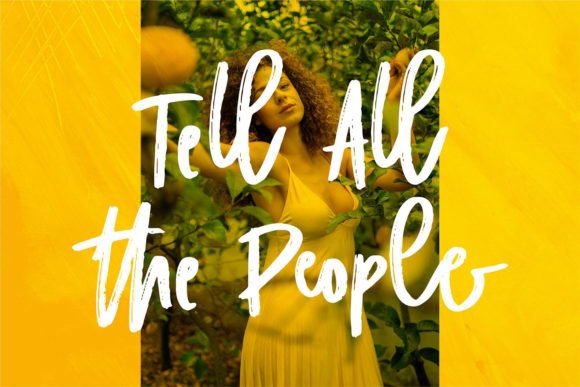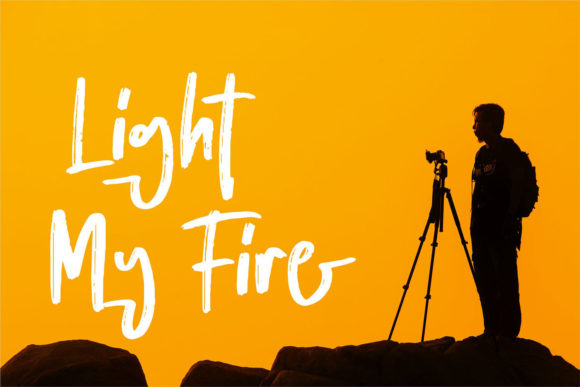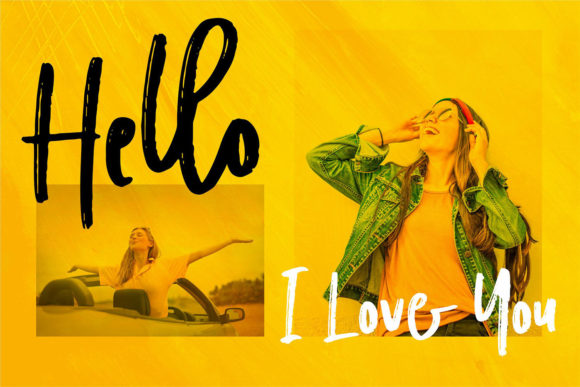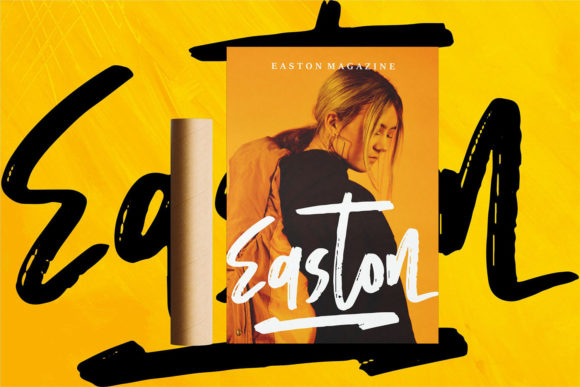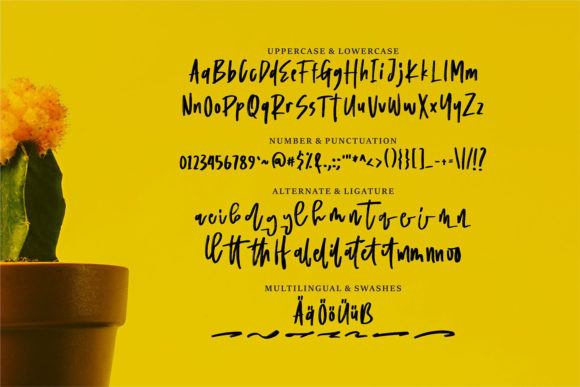
Introducing Galiley Font: The Modern, Handwritten Script Font You Need
Are you tired of using the same old fonts in your designs? Look no further than Galiley Font, a modern, asymmetrical, and relaxed paint brushed script font that’s sure to add a personal and realistic feel to your creations. With its authentic handwritten look and feel, Galiley Font is the perfect choice for designers and crafters who want to add a touch of elegance and sophistication to their work.
The Features of Galiley Font
Galiley Font is a versatile and stylish font that’s perfect for a wide range of design projects. Here are just a few of its key features:
- Modern and asymmetrical design: Galiley Font has a unique, modern design that’s both asymmetrical and relaxed. This gives it a fresh and contemporary feel that’s perfect for designers who want to create something new and exciting.
- Authentic handwritten look and feel: Unlike other script fonts, Galiley Font has an authentic handwritten look and feel that’s sure to add a personal touch to your designs. Whether you’re creating a logo, a poster, or a social media graphic, Galiley Font is the perfect choice.
- Versatile style: Galiley Font is incredibly versatile, making it perfect for a wide range of design projects. From elegant wedding invitations to fun and playful party decorations, Galiley Font can be used to create spectacular designs that are sure to impress.
Why Designers and Crafters Love Galiley Font
So why do designers and crafters love Galiley Font? Here are just a few reasons:
- Easy to read: Despite its handwritten look and feel, Galiley Font is incredibly easy to read. This makes it perfect for designs that require a lot of text, such as posters, flyers, and brochures.
- Highly customizable: Galiley Font is highly customizable, making it easy to use in a wide range of design projects. Whether you want to change the color, size, or style of the font, Galiley Font is easy to work with.
- Unique and creative: Galiley Font is a unique and creative font that’s sure to add a touch of personality to your designs. Whether you’re creating a logo, a poster, or a social media graphic, Galiley Font is the perfect choice for designers who want to stand out from the crowd.
How to Use Galiley Font in Your Designs
So how can you use Galiley Font in your designs? Here are a few ideas to get you started:
- Logos and branding: Galiley Font is perfect for logos and branding projects. Its modern and asymmetrical design makes it a great choice for companies who want to create a fresh and contemporary brand identity.
- Wedding invitations and stationery: Galiley Font is also perfect for wedding invitations and stationery. Its elegant and sophisticated design makes it a great choice for couples who want to create beautiful and memorable wedding stationery.
- Social media graphics: Galiley Font is a great choice for social media graphics, such as Facebook posts, Instagram stories, and Twitter headers. Its modern and asymmetrical design makes it perfect for creating eye-catching and engaging social media graphics.